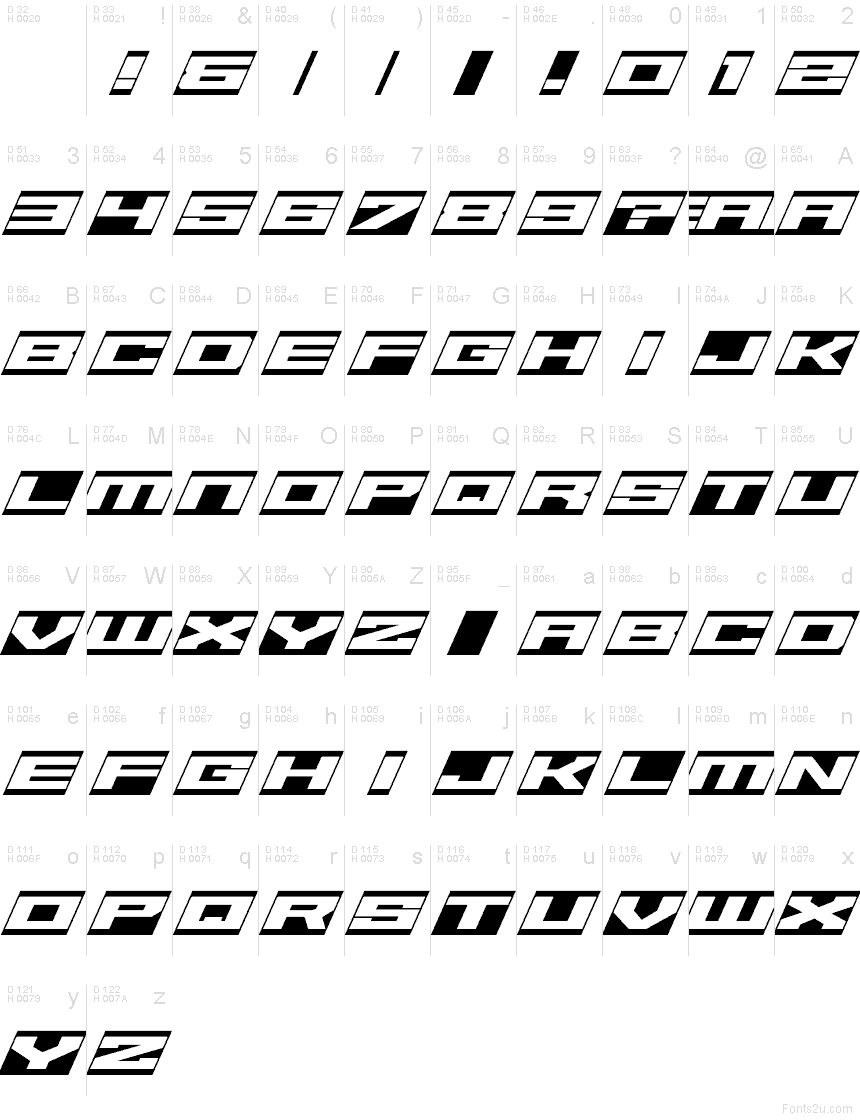
Gear-Rever
Gear6 Rever font by Youssef Habchi is a free techno racing display font built to telegraph motion at a glance. Its steep forward slant, hard-cut diagonals, and muscular, blocky rhythm deliver that wind-in-your-face acceleration—clean, loud, and legible at speed. The Gear6 family DNA shows in the tight geometry and sharpened edges, giving headlines a turbine-like whirr without clutter.
Using Gear6 Rever, you can push energy into motorsport branding, racing posters, pit-lane signage, car liveries, esports logos, performance gear packaging, and streaming overlays. This free font shines when set large with a touch of extra tracking; pair it with a neutral condensed sans for specs and captions to keep the focus on the thrust.